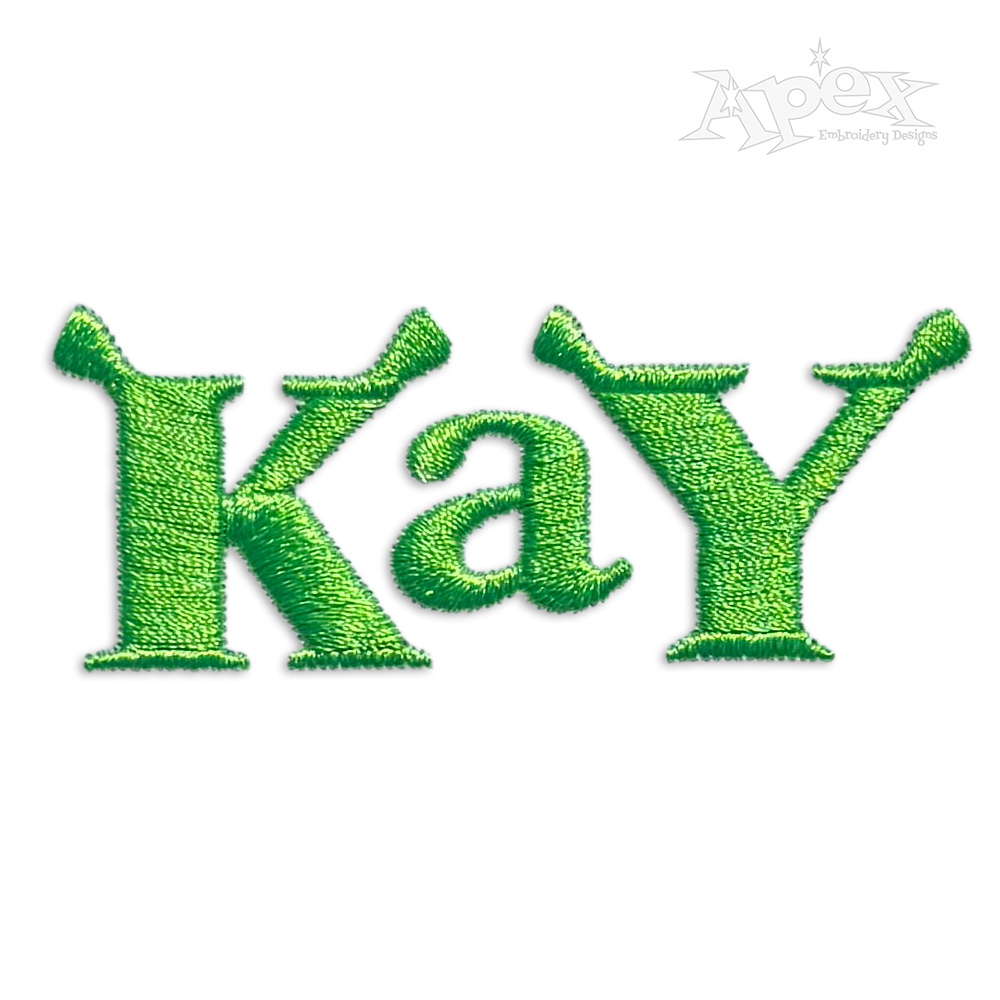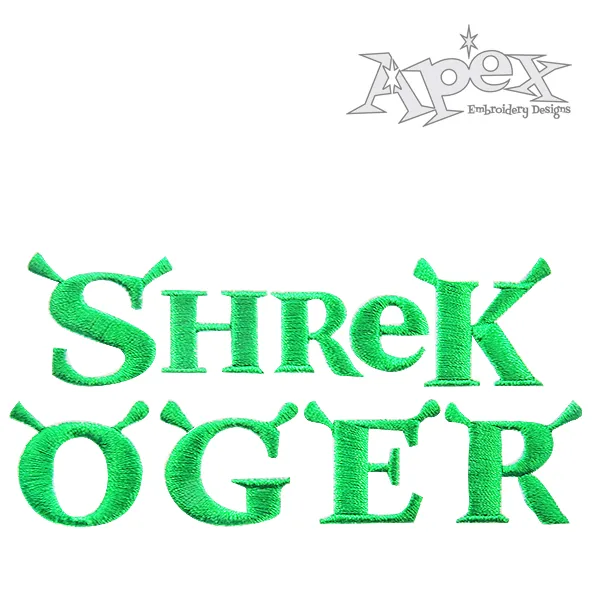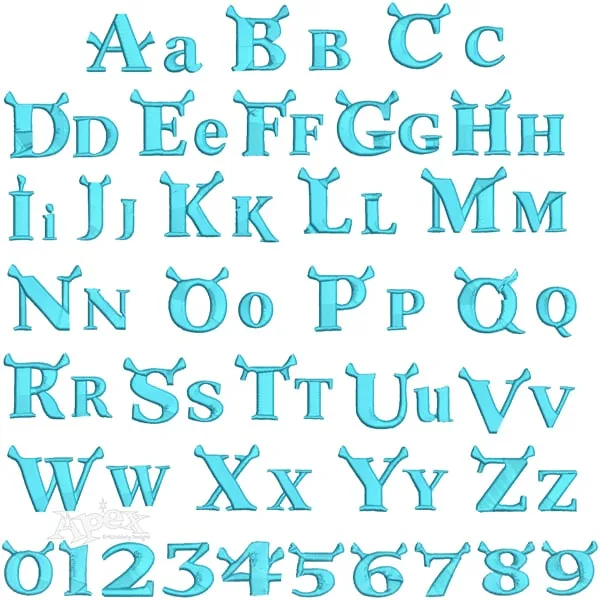
Shrek Embroidery Font
Swamp magic meets playful embroidery artisan craft. Deep storybook nostalgia pulses through every stitch, capturing iconic ogre charm through distinct horn accents perched atop bold serif letterforms. Digitized with balanced stitch densities and rich textures, this whimsical typeface brings playful energy to childhood keepsakes, quirky monogramming, and standout custom gear.
- Letter height: 2 inch
- Complete uppercase alphabet featuring character horns
- Complete lowercase alphabet
- Numbers 0 through 9
Project Ideas for Shrek
Shrek Craft & Letterform Details
Digitizing whimsical character lettering requires meticulous satin flow. Each uppercase letter features signature curved horn finials angled for lively visual motion. Controlled stitch paths prevent thread bunching under tight corners, ensuring flat transitions across wide serifs. Heavy column widths balance playful proportions with structural integrity. Lowercase letters maintain uniform x-height, complementing bold capitals without sacrificing clean readability on textured textiles.